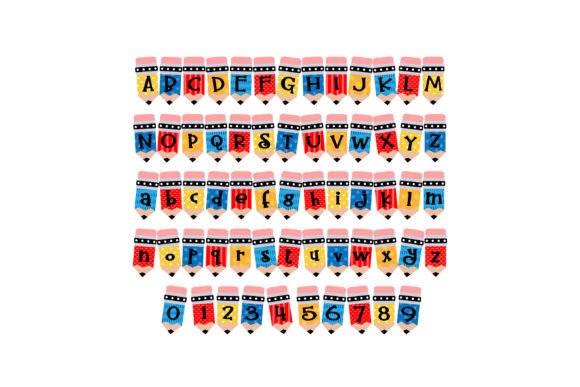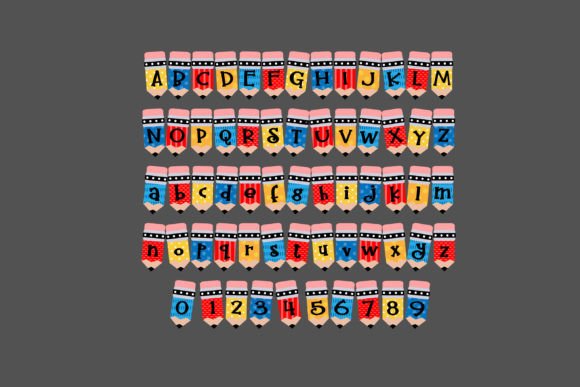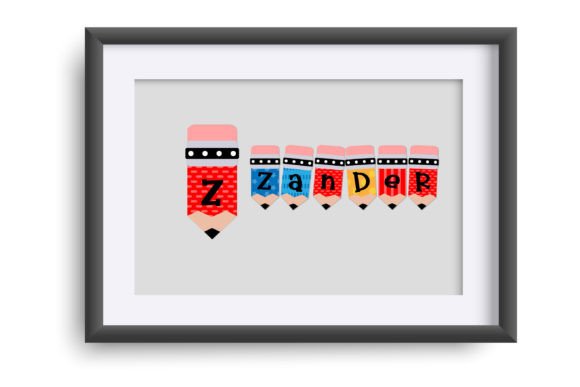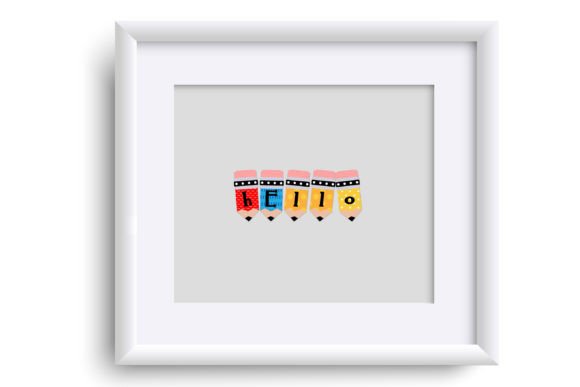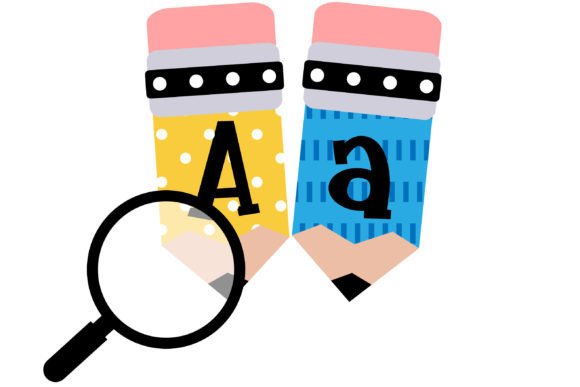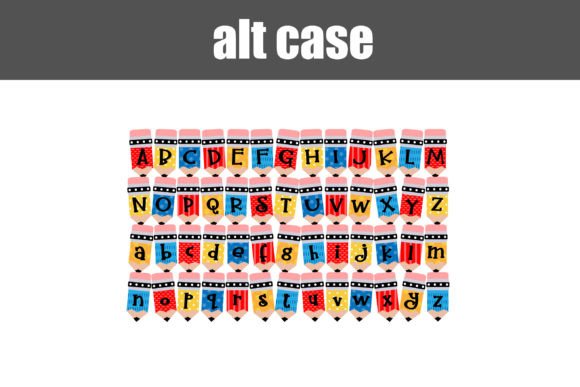
Introduction to Pencil Pattern Font
Do you remember the feeling of excitement when you first picked up a pencil and started creating? The possibilities were endless, and the simple act of drawing could transport you to a world of imagination and creativity. As designers, we’re always on the lookout for unique design resources to elevate our projects, and that’s exactly what the Pencil Pattern Font offers.
This vibrant font is more than just a pretty face – it’s a game-changer for designers looking to add a personal touch to their work. With its high-quality design and transparent background, it’s the perfect addition to any creative project. And the best part? You can easily access the alt version of each letter through your system character map, giving you even more design options.
- Unique, hand-drawn design that adds a personal touch to any creative project.
- Comes in a transparent background format, allowing for seamless integration with any design.
- Perfect for designers, artists, and crafters looking for a distinctive and creative design element.
- Ideal for use in a variety of projects, including digital art, print materials, and web design.
Honest Review: Pencil Pattern Font
I recently had the chance to work with the Pencil Pattern Font, and I must say it’s been a great addition to my design resource library. The font is a high-quality, vector-based design that offers a lot of creative possibilities for my next project.
- ✨ What works well: The Pencil Pattern Font is incredibly versatile and can be used for a wide range of creative projects, from children’s books to greeting cards.
However, there are a few limitations to consider. ⚠️ The font is only available in a limited number of styles, which may not be suitable for every design project. Additionally, the file size can be quite large, which may cause issues with slower internet connections.
Overall, I’m impressed with the Pencil Pattern Font and would highly recommend it to designers looking for a high-quality, free design resource. While it may not be perfect, it’s a great addition to any design library and can add a unique touch to any creative project.
Pencil Pattern Font
Tips for Getting the Most Out of Pencil Pattern Font
To get the most out of Pencil Pattern Font, use it with a transparent background to create a seamless and high-quality design. You can also experiment with different font sizes, colors, and combinations to achieve a unique look.
Pencil Pattern Font is ideal for use in creative projects such as graphic design, digital art, and print design. It can be used to create engaging graphics, logos, and illustrations for a variety of industries, including fashion, food, and travel.